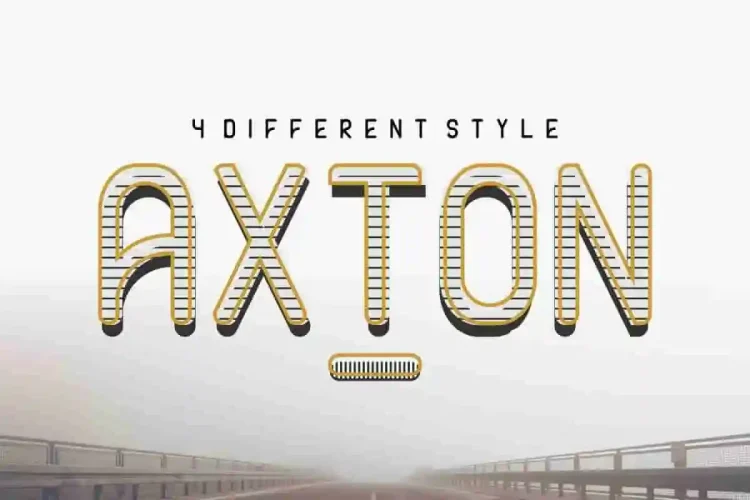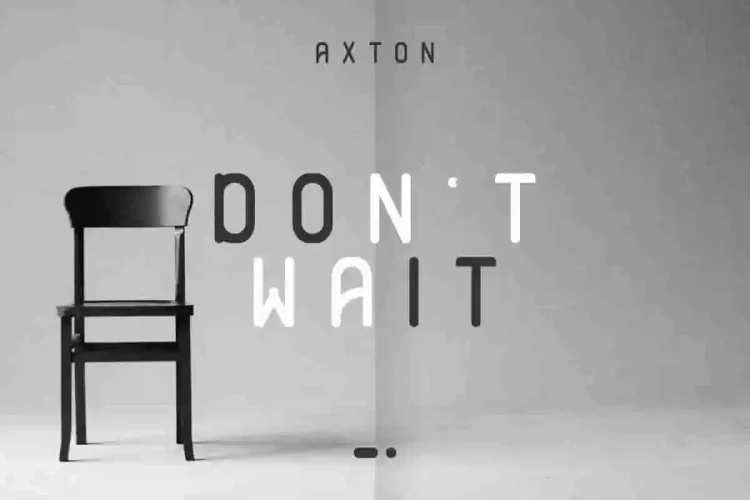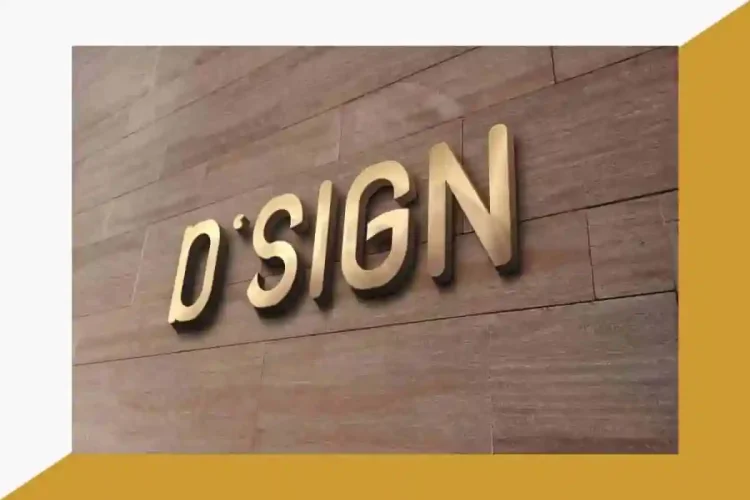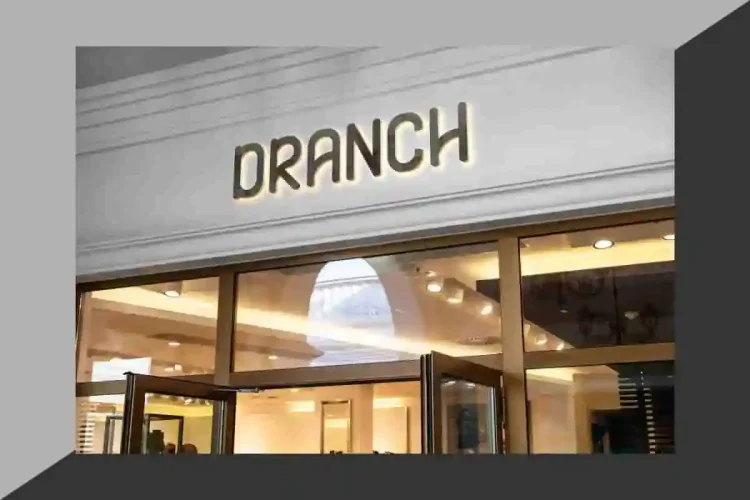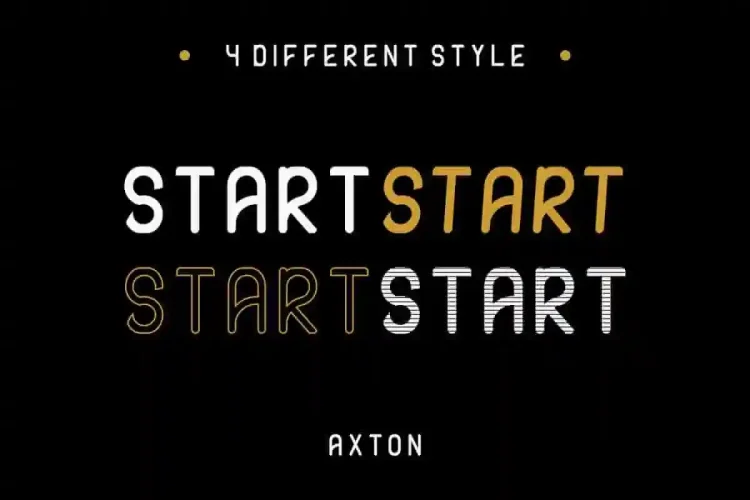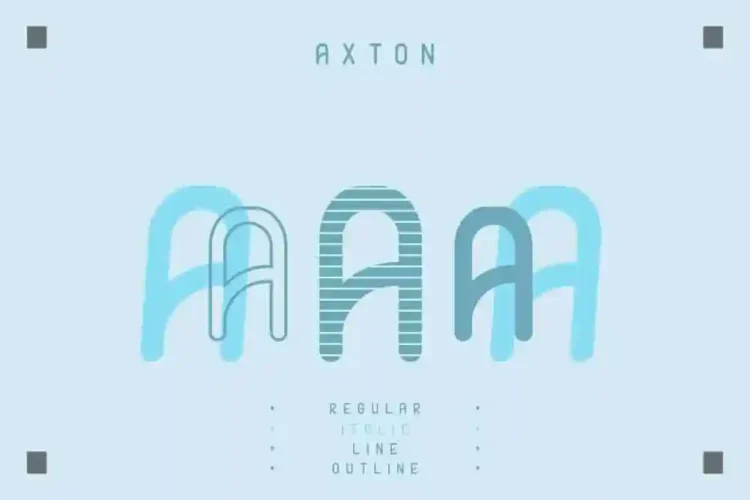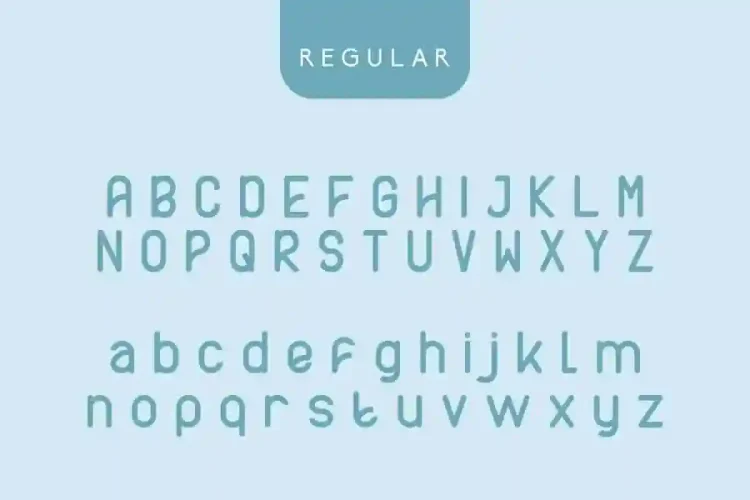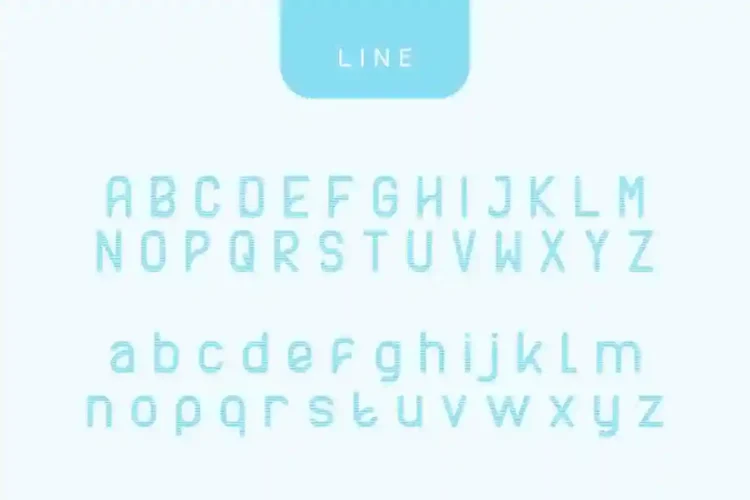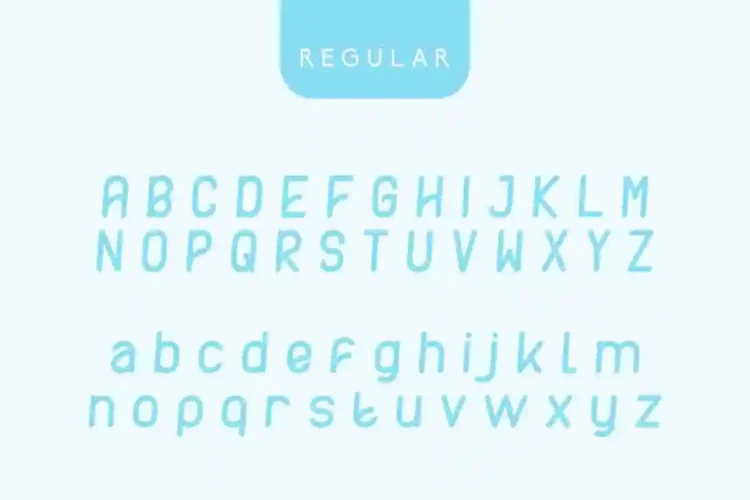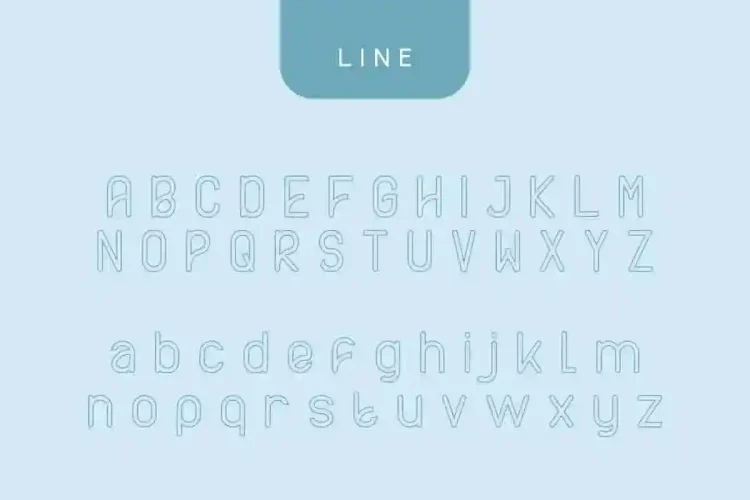
AXTON Sans Serif Retro Fonts
Hi Guys! It’s us again, please meet our newest font : AXTON! This is FOUR fonts into ONE. AXTON combines modern sans-serif clarity with a retro twist that brings bold personality to any design.
Yes! it has 4 fonts family : Sans, Italic, Line and Stroke, in one versatile pack!
• Regular – Clean and crisp, perfect for headlines and digital layouts
• Italic – A sleek slant for dynamic movement
• Line – Striped retro charm with a futuristic edge
• Outline – Lightweight and minimal, ideal for layering or branding
Whether you’re working on posters, packaging, social media graphics, apparel, signage, or digital interfaces. AXTON is perfect for bold website headlines, funky Instagram quotes, retro T-shirt designs, indie album covers, and eye-catching UI/UX elements.
AXTON delivers the perfect retro-modern balance. Its rounded shapes and clean structure echo mid-century design, while its versatile styles let you create layered, eye-catching branding that feels both familiar and fresh. From logos to labels, AXTON gives your visuals a timeless voice with a modern twist.
What sets AXTON apart is its layerable font system each style is designed to work alone or in combination. Overlay the Line and Outline styles for a dimensional look, or pair Italic with Regular for subtle movement. The creative possibilities are endless, yet the consistent proportions ensure everything stays easy to read, stylish, and sharp.
• 4 font styles for creative variation
• Distinctive letter shapes that stand out
• Bold, clean lines with a playful retro influence
• Great for branding, tech, editorial, and entertainment design
• Perfect balance between contemporary and vintage aesthetics
If you’re looking for a retro-modern sans serif that offers visual impact without compromising legibility, AXTON is your go-to font.